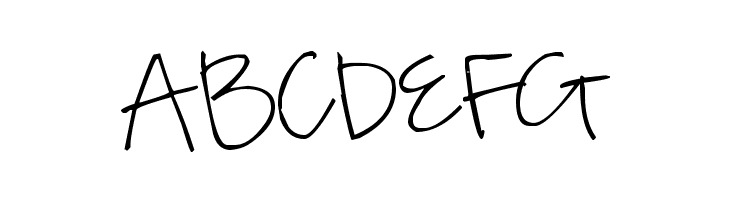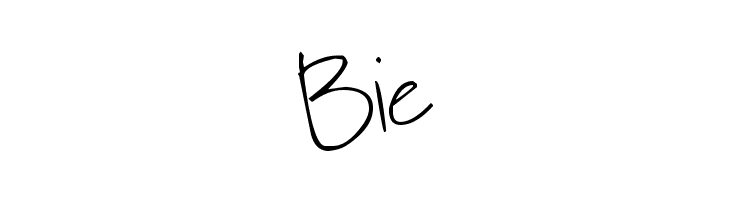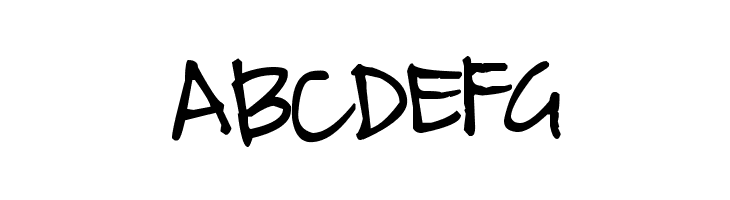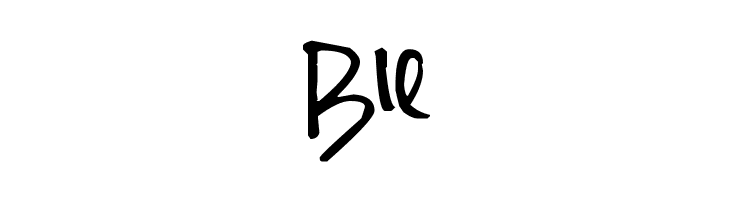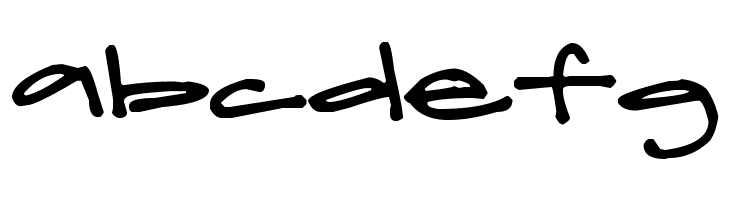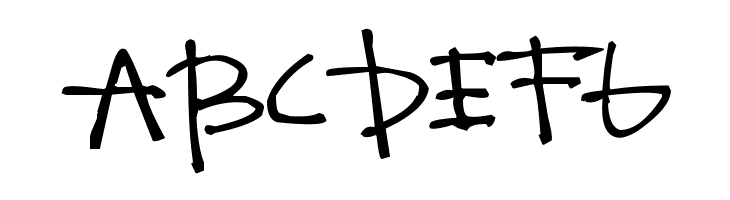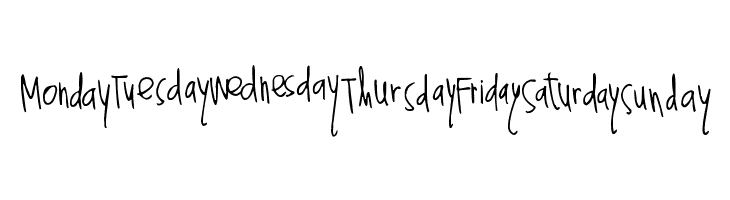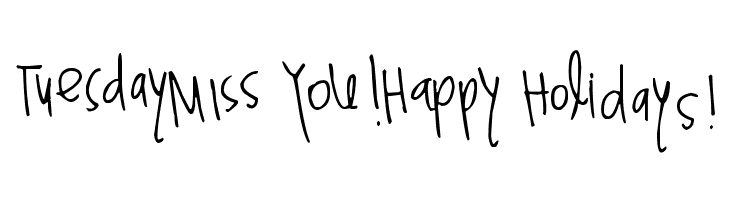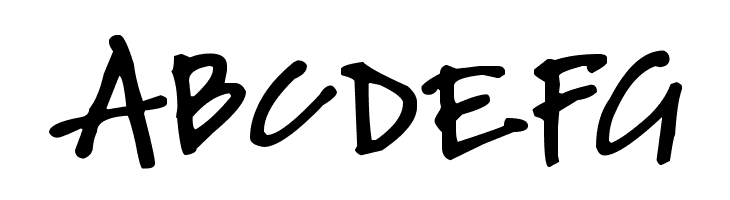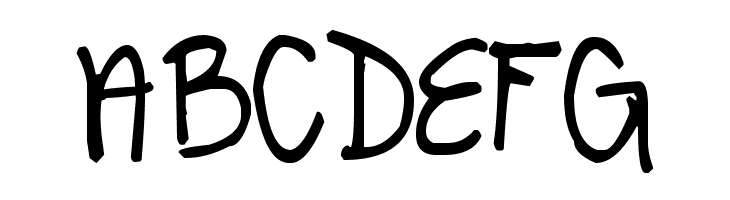
A playful, handwritten font with a whimsical and casual style.
A playful, casual handwritten font with lively, uneven strokes.
A playful, handwritten font with dynamic and irregular strokes.
A playful, handwritten font with a casual and dynamic style.
A playful, casual handwritten font with dynamic strokes and a personal touch.
A playful, handwritten font with a casual and dynamic style.
A playful, handwritten font with a casual and whimsical style.
A playful, handwritten font with bold strokes and quirky character spacing.
A playful and casual handwritten font with irregular strokes and a lively appearance.
A playful, handwritten font with smooth, flowing lines and a friendly appearance.